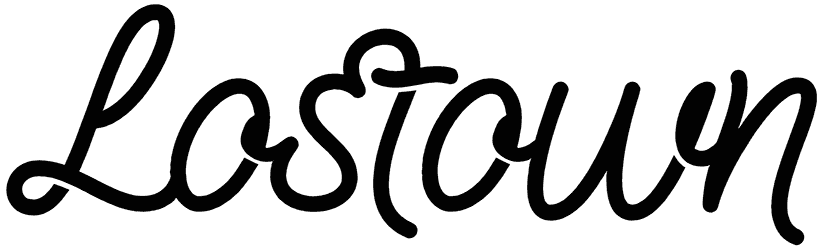
Lostown Font
If you like to create a vivid and urban mood for your presentation, choosing this neon font will impress your followers. The casual script characters of the Lostown font will add a cool vibe to your creative design. Set this handwritten font on your nightclub party flyer or any layout that you want, and capture a lot of attention.